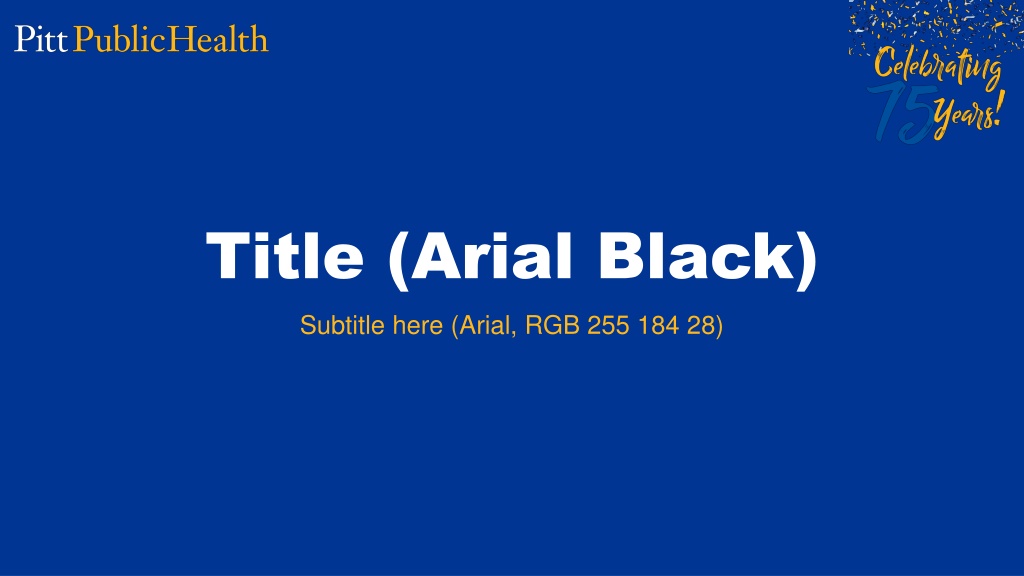
Stylish Title Design with Black Arial Font
This design features a stylish title with Arial Black font and a subtitle in Arial with a dark gold color. The content is presented in a visually appealing layout for a professional presentation. If your text exceeds the space available, it is recommended to split the information across multiple slides to maintain clarity and readability.
Title (Arial Black) Subtitle here (Arial, RGB 255 184 28)
Page Title General text in white Arial Secondary content in Dark Gold (RGB 181 133 0) If your text doesn t fit using this size text, then you need to break your information onto two slides